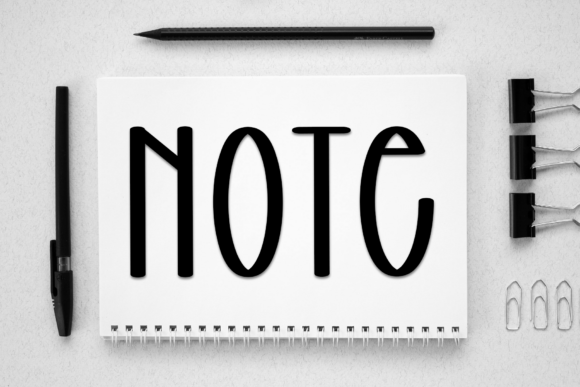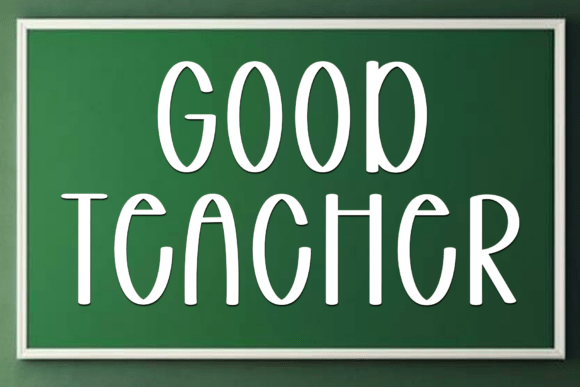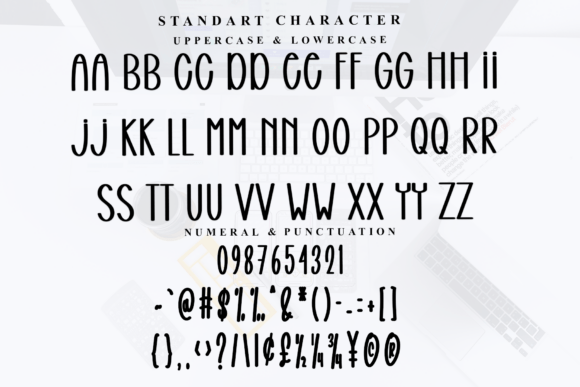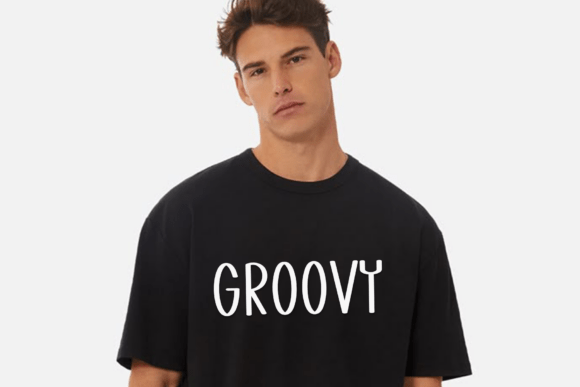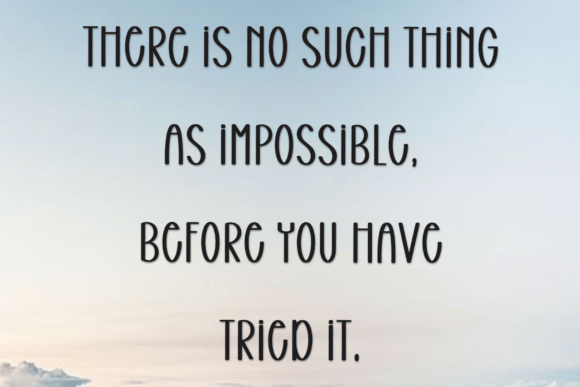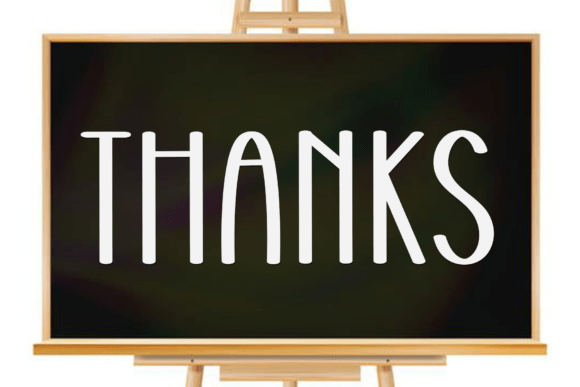
The Magic of Autumn Positive: A Font that Brings Warmth to Your Designs
I’ll never forget the time I was working on a project for a cozy fall-themed craft fair, and I just couldn’t find the right font to capture the essence of the season. My client wanted something that felt warm, inviting, and uniquely autumnal. I scoured the internet, tried out dozens of fonts, but nothing seemed quite right. That was until I stumbled upon Autumn Positive – a beautiful, eye-catching font that instantly transported me to a crisp fall morning. In this article, I’ll share my love for this font, its features, and how you can make the most of it in your designs.
An Honest Review of Autumn Positive
- ✨ Unique and distinctive strokes that give it a special character
- ✅ Versatile and meaningful for a wide range of design projects
- 🌿 Natural font style that evokes the feeling of fall
While Autumn Positive is an amazing font, there are a few things to keep in mind:
- 🤔 Limited availability of certain characters – make sure to check the font’s capabilities before using it for a project
- ⚠️ May not be suitable for very small font sizes – the unique strokes may become lost at smaller sizes
The Backstory of Autumn Positive
Autumn Positive was designed with the intention of capturing the warmth and coziness of the fall season. The designer aimed to create a font that would not only be aesthetically pleasing but also evoke a sense of comfort and approachability. The result is a font that feels both natural and unique, making it perfect for a wide range of design projects.
| What makes Autumn Positive unique? | Autumn Positive features distinctive strokes that give it a special character, making it perfect for designs that require a touch of personality. |
| Are there any limitations to using Autumn Positive? | While Autumn Positive is a versatile font, it may not be suitable for very small font sizes, and some characters may be limited. |